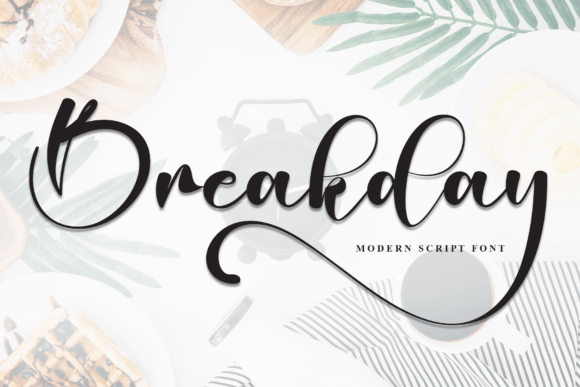
The Breakday Font: A Beautiful Handwritten Script to Elevate Your Designs
I’ll never forget the struggle I faced while working on a branding project for a boutique client. I had to find the perfect font that would reflect the elegance and personal touch of her handmade products. After hours of scrolling through font libraries, I stumbled upon the Breakday font, and it was love at first sight! 💕
The Breakday font is a beautiful handwritten script font with a natural and elegant style. It looks like real handwriting, making it perfect for adding a personal and creative touch to your designs. In this article, I’ll share my experience with the Breakday font, its features, and how to use it on various platforms.
An Honest Review of Breakday Font
What I Love About Breakday Font ✨
- 💫 Natural and elegant handwritten style that looks like real handwriting
- 🌈 Beautifully crafted to add a personal touch to any design
- 📚 Extensive character set, including support for multiple languages
While the Breakday font is amazing, there are a few things to keep in mind:
- 🤔 Some letters have slightly inconsistent spacing, which may require manual adjustment
- ⚠️ Limited availability of stylistic alternates, but still offers a range of OpenType features
The Story Behind Breakday Font
The Breakday font was designed with the intention of capturing the essence of real handwriting. The designer aimed to create a font that would add a personal touch to digital designs, making them more relatable and human. Inspired by the imperfections and uniqueness of handwriting, the Breakday font was crafted to bring a sense of elegance and sophistication to any design project.
Q: What is the Breakday font best used for?
A: The Breakday font is ideal for designs that require a personal and creative touch, such as branding, packaging, and digital marketing materials.
Q: Is the Breakday font available in multiple languages?
A: Yes, the Breakday font supports multiple languages, making it a great choice for global design projects.